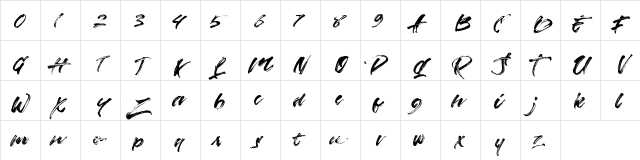
Strade Eqrem FREE Regular
| Foundry | Vunira Design |
| Designer | Vunira Design |
Design Context for Strade Eqrem FREE Typeface
Strade Eqrem FREE is a composed and adaptable typeface that performs quietly and consistently across a wide range of design contexts.